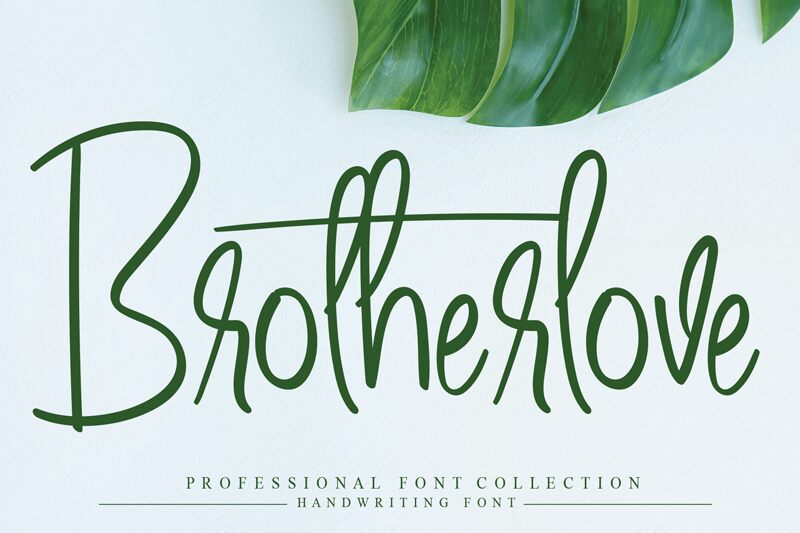
Brotherlove font designed by Scratchones is a free handwritten font for personal use. Its characters float in a casual elegance seamlessly to form words and sentences naturally. Its free-flowing organic style emphasizes its contemporary applications in branding and personal projects in particular. This resource is versatile enough to suit a large variety of creative design work.
Use Brotherlove in advertisements, branding, magazines, brochures, websites, and social media. It can also be used in headings, sensory materials, and in all visuals related to personal projects. The font is also suitable for body text in modest font sizes.